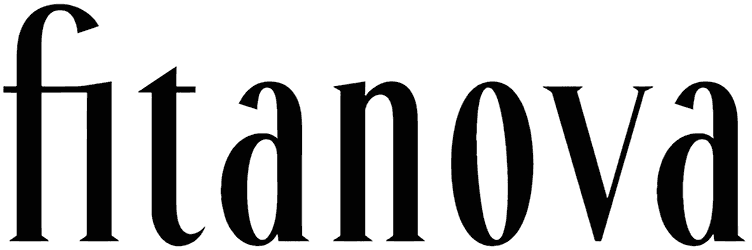
Fitanova Font
Fitanova is a formal serif font that can be seriously considered for any kind of creative ideas, such as business cards, magazines, product packaging, billboards, or branding projects that require a trustworthy font the same to Fitanova.